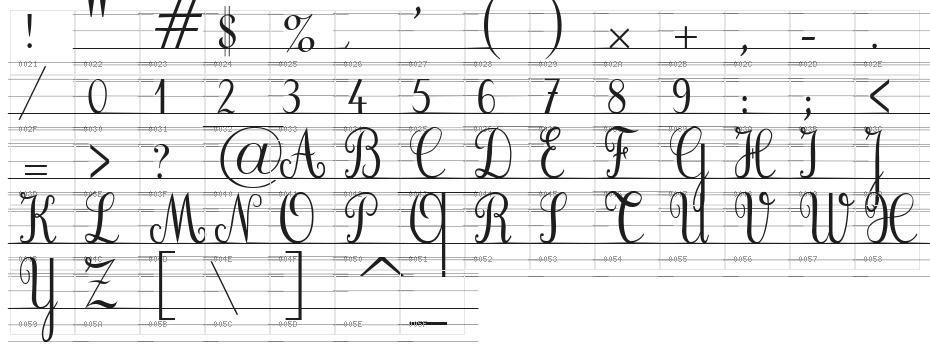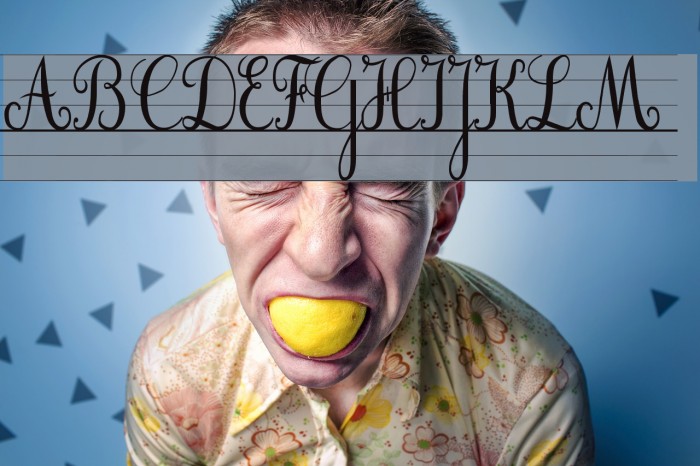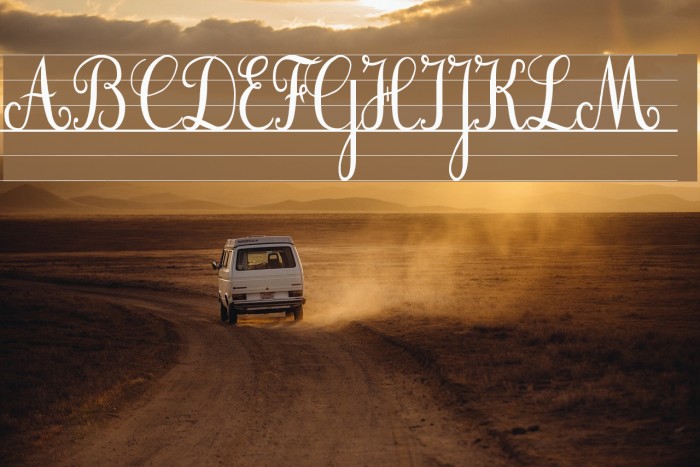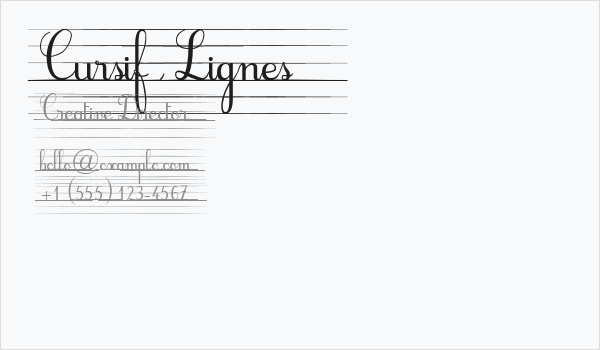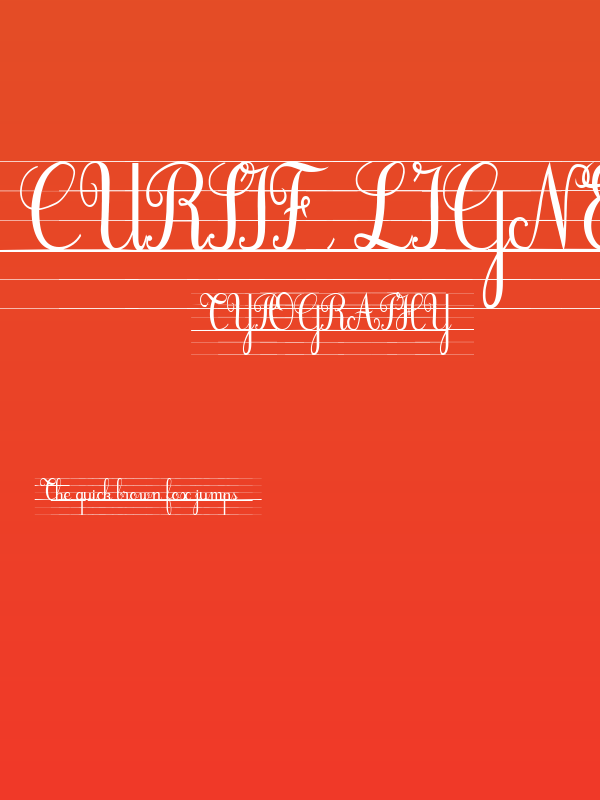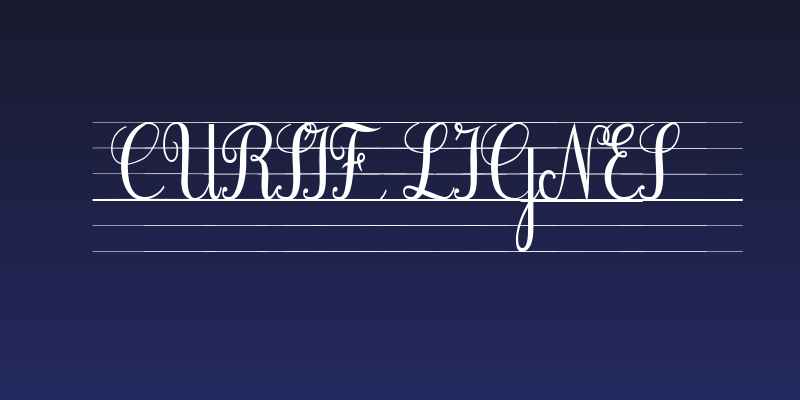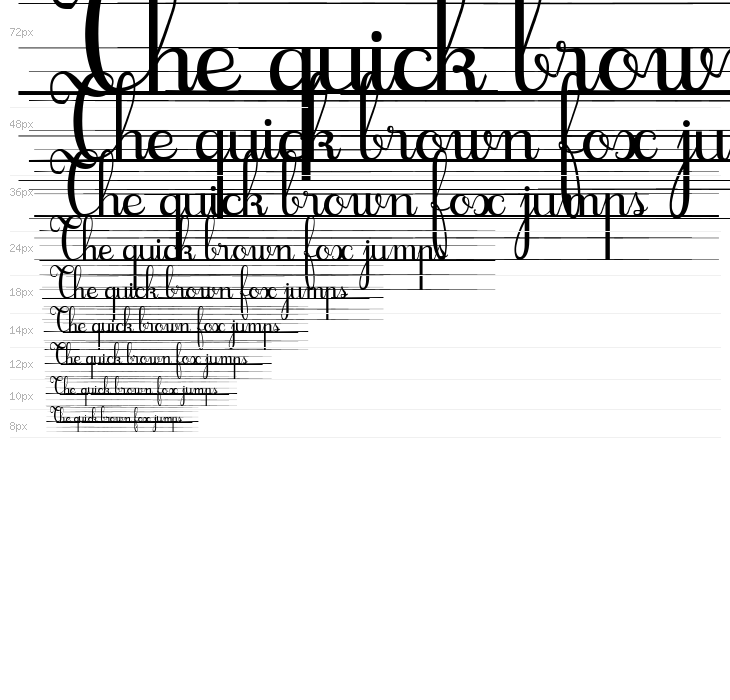
Cursif & Lignes Font
Cursif & Lignes Description
This elegant script font features a flowing, cursive style with intricate loops and flourishes. The uppercase letters are grand and sweeping, while the lowercase characters maintain a consistent, graceful flow. The numerals are stylishly integrated, complementing the overall aesthetic. Special characters are designed with the same attention to detail, enhancing the font's decorative appeal. The lines are smooth and continuous, giving it a refined and sophisticated look, perfect for formal invitations or elegant branding.